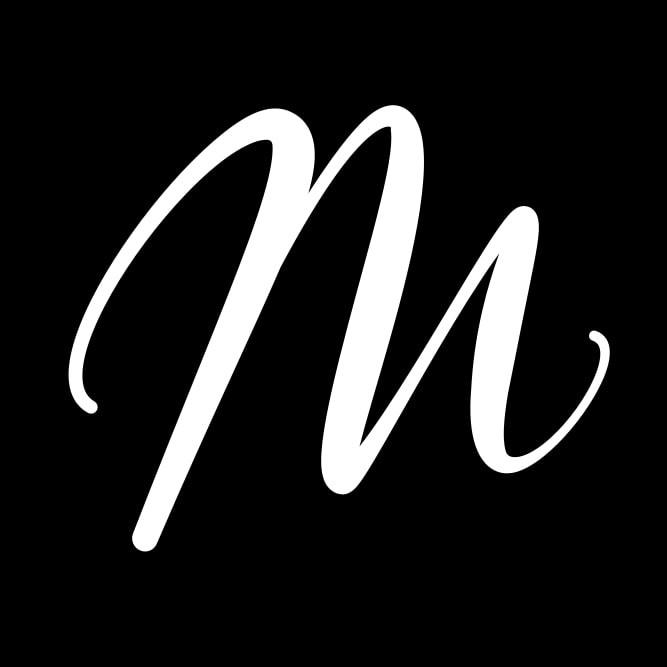
Morning Art Font Description
Morning art is a superb handwritten font created with a flowing line of realistic handwriting. It looks exquisite, romantic, and elegant, perfect for projects that need a personal note. This font is PUA encoded, which means you can access all of the glyphs and swashes with ease!